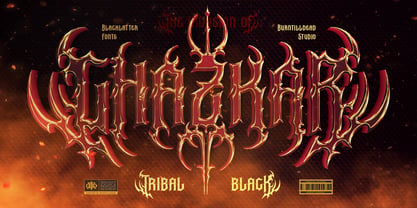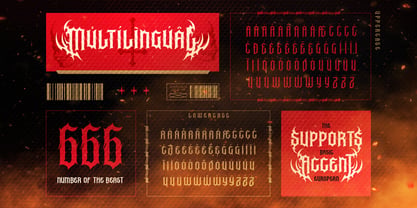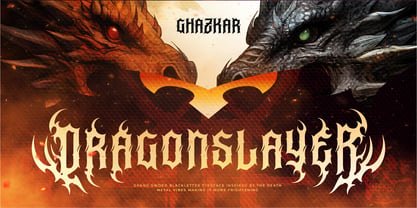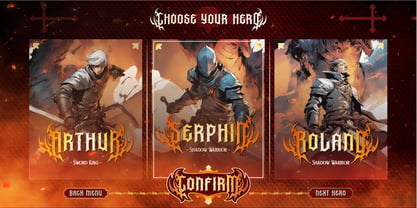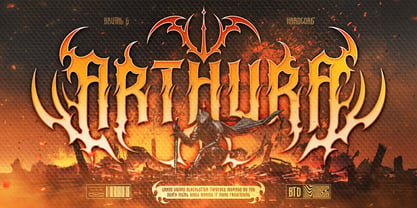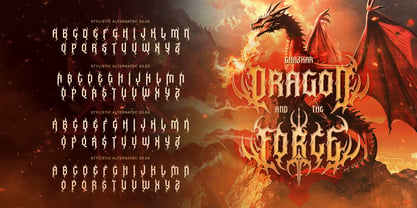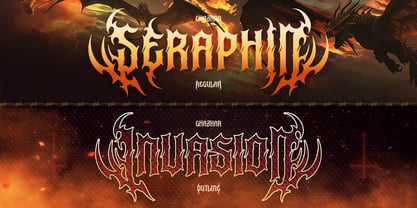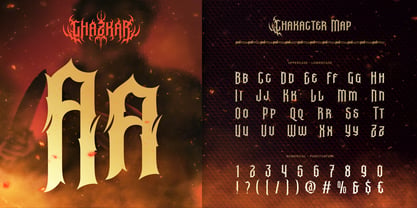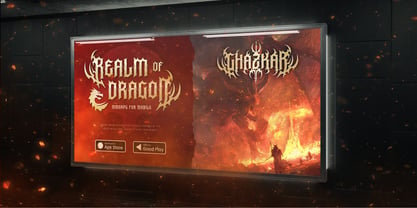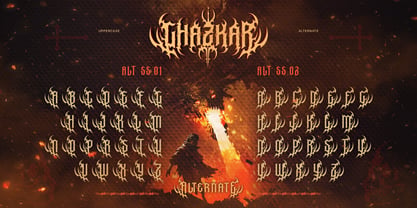
Ghazkar
by Burntilldead
The Ghazkar Font Family was designed by Eric Kurniawan and published by Burntilldead. Ghazkar contains 2 styles and family package options. More about this family
Proudly present, Ghazkar — a sharp and dominant tribal blackletter typeface.
This font features unique character details through extra elements like spikes, thorns, and vine-like motifs that blend seamlessly with its letter structure.
Ghazkar comes in two styles: Regular and Outline, equipped with a wide range of ligatures and alternates to let your wild creativity flow freely.
With its bold gothic style, this font is a solid choice for dark fantasy themes, heavy metal designs, tattoo artwork, gothic horror, or any branding that demands power and visual dominance.
Feel the visual power of Ghazkar and let your design speak with untamed energy.
Features:
• Uppercase & Lowercase
• Number
• Punctuation
• Alternate
• Ligatures
• Multilingual